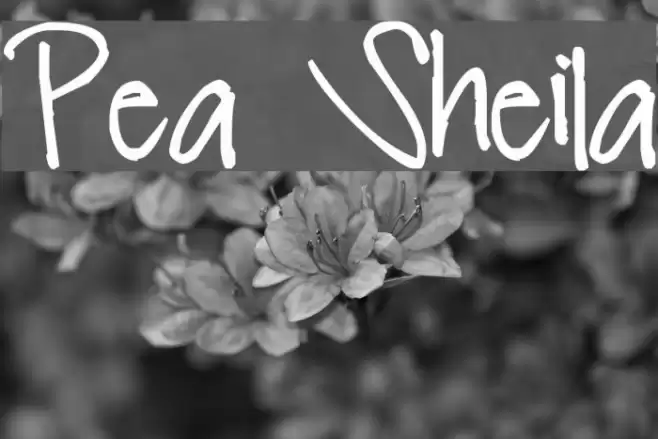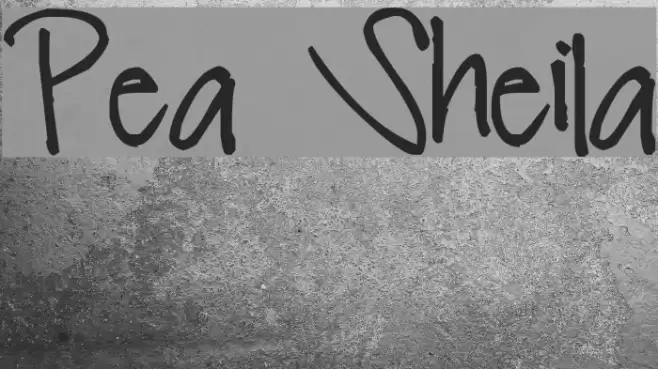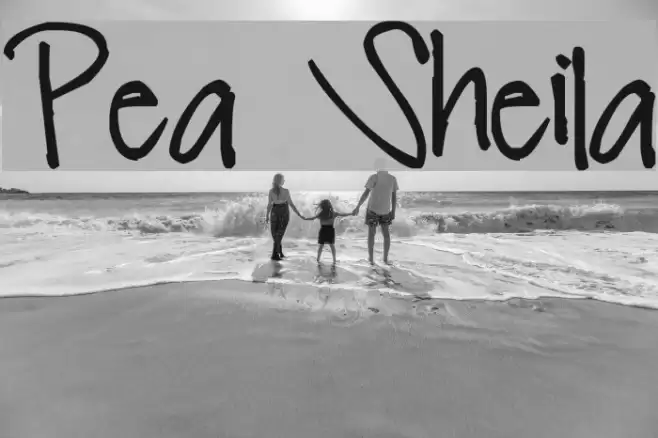
Pea Sheila Font
Pea Sheila Description
This font exudes a casual and playful handwritten style, characterized by its loose and flowing strokes. The letters are slightly irregular, giving it a personal and informal touch. The uppercase letters maintain a consistent height, while the lowercase letters vary in size, adding to the font's dynamic appearance. The numbers are bold and clear, ensuring readability. Special characters are creatively designed, maintaining the overall whimsical feel. This font is perfect for projects that require a personal, friendly, and approachable aesthetic.
A playful and casual handwritten font with dynamic strokes from Uncategorized fonts.
- Proposed Projects: Ideal for greeting cards, personal blogs, children's books, and informal branding.
- Overall Style: Casual
- Use Case: Headlines, Logos, Informal Text